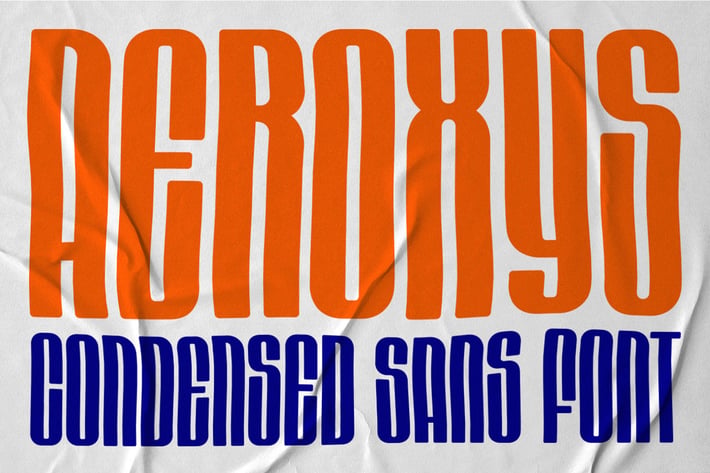
Aeroxys Condensed Display Sans Font
Aeroxys is an condensed sans serif display font, and with a style that is very different from the others.
Aeroxys is well-suited for posters, social media, headlines, magazine titles and wherever you want to be seen. Inspired by the style of design that is currently popular, and this is the answer to all the needs of every idea that you will pour in this modern era.